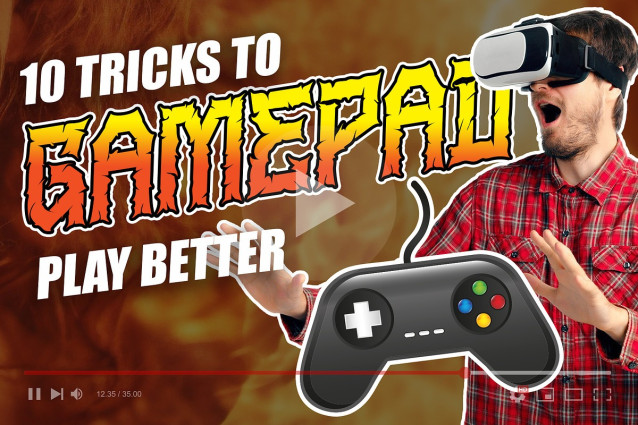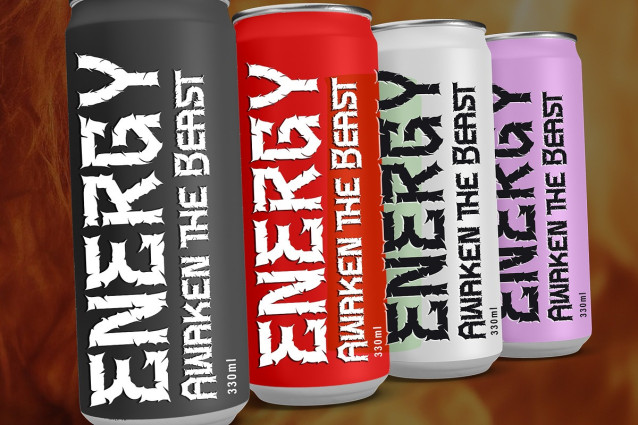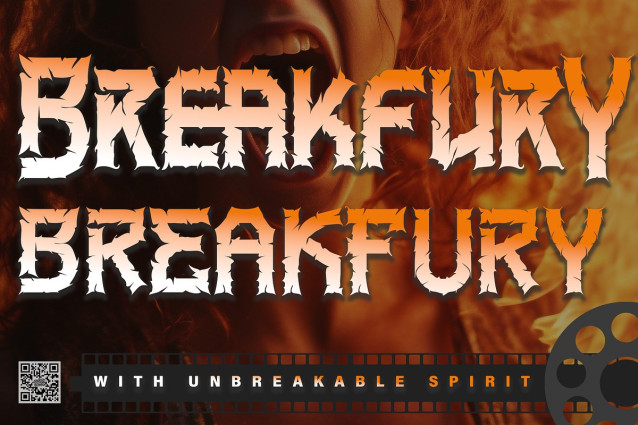
Breakfury Font
Breakfury Font, where raw energy and rugged style converge in an intense, rebellious display of strength. Inspired by the spirit of defiance, Breakfury breaks the mold with its bold, fractured strokes and untamed edges, delivering a visceral punch to any design. This font is the perfect companion for projects that crave a powerful, unpolished look—ideal for music posters, edgy logos, daring branding, or titles that demand attention. Whether you’re crafting a statement piece or a bold headline, Breakfury infuses your work with an unstoppable, fearless attitude. Embrace the impact, and let Breakfury shatter conventions with every letter.